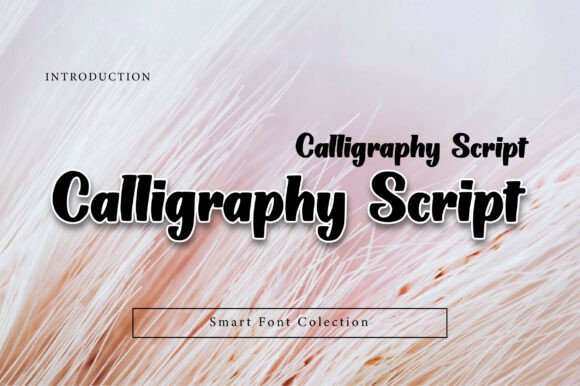
The Elegance of Calligraphy Script Font: Elevate Your Designs with Timeless Sophistication
Have you ever been in the midst of working on a design project, only to find yourself stuck on one thing: the perfect font? I recall a particularly frustrating experience while designing a wedding invitation for a close friend. The invitation needed to convey a sense of luxury and sophistication, but no matter which font I chose, it seemed to fall flat. That was until I discovered the Calligraphy Script font. This stunning masterpiece of modern brush lettering instantly brought a sense of high-end elegance to my design, and I knew I had found the perfect fit.
What Makes Calligraphy Script Font So Special?
The Calligraphy Script font is a beautifully crafted typeface that embodies the essence of traditional calligraphy with a modern twist. Its elegant, fluid strokes and natural contrast between thick and thin lines capture the authentic feel of a hand-inked pen. This font is specifically designed for those who need a touch of luxury for wedding invitations, premium labels, and high-fashion editorial work.
Here’s what I love about the Calligraphy Script font:
- ✨ Elegant and sophisticated aesthetic that’s perfect for luxury brands and high-end designs
- ✅ Natural, hand-crafted feel that adds a touch of warmth to any design
- 💫 Highly versatile and pairs well with a variety of font styles, from structured serifs to modern sans-serifs
- 🔥 Excellent for use in signature-style logos, delicate quotes, and social media graphics
And, like any font, it’s not without its quirks:
- 🤔 Some users may find the font’s sensitivity to size and resolution can affect its readability in certain contexts
- ⚠️ As with many script fonts, overuse or poor pairing with other fonts can lead to a cluttered or dated look
- Explore the font’s OpenType features, such as glyphs and stylistic alternates, to add more depth and variety to your design
The Story Behind Calligraphy Script Font
The Calligraphy Script font was inspired by the art of traditional calligraphy, with its elegant flourishes and natural flow. The designer, a master of modern brush lettering, sought to capture the essence of hand-inked calligraphy in a digital font. Through countless hours of refinement and attention to detail, the Calligraphy Script font was born – a true masterpiece of modern typography.
| Is Calligraphy Script font suitable for body text? | While Calligraphy Script font is stunning for headings and titles, it’s not recommended for body text due to its script nature and potential readability issues. |